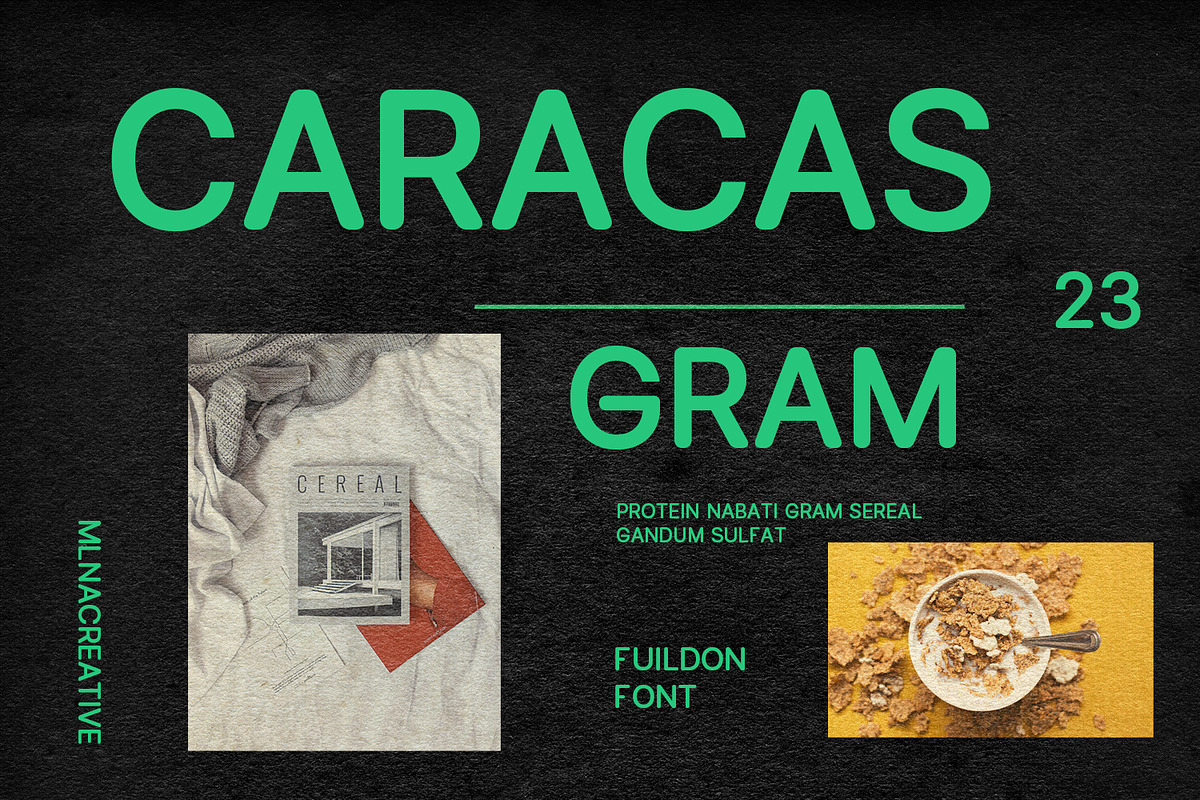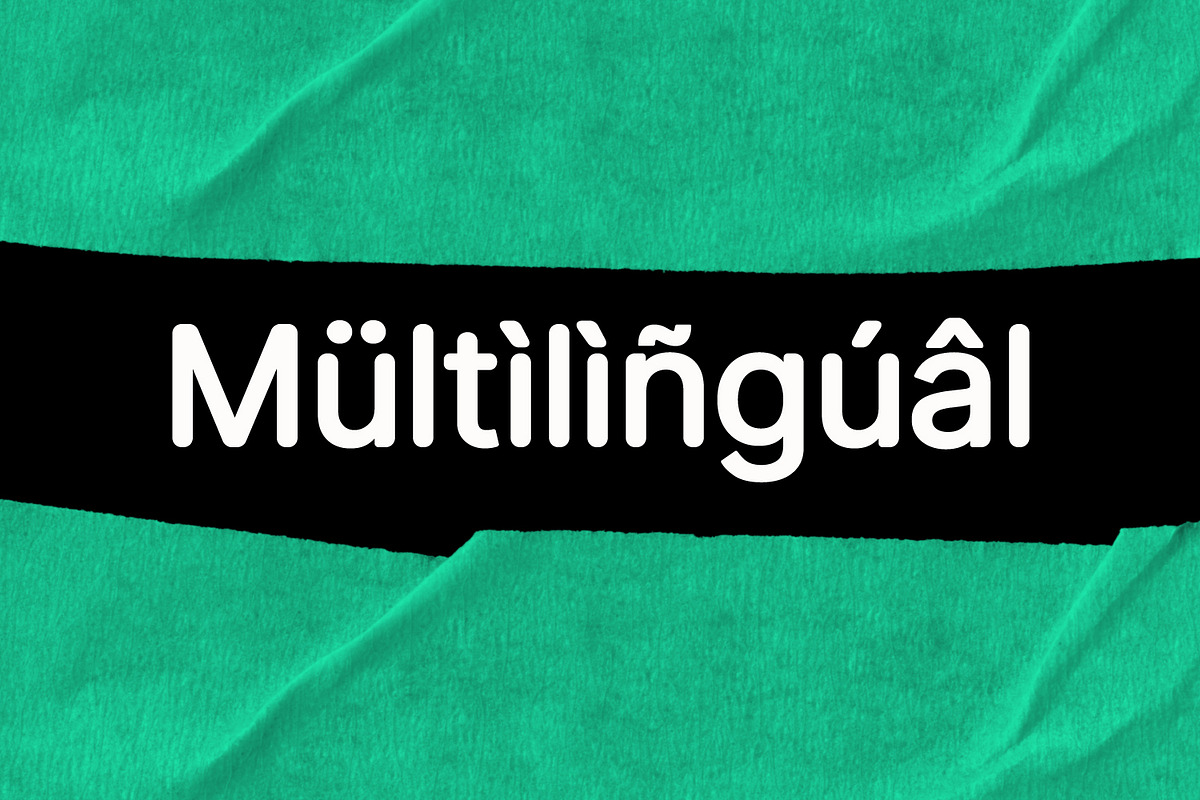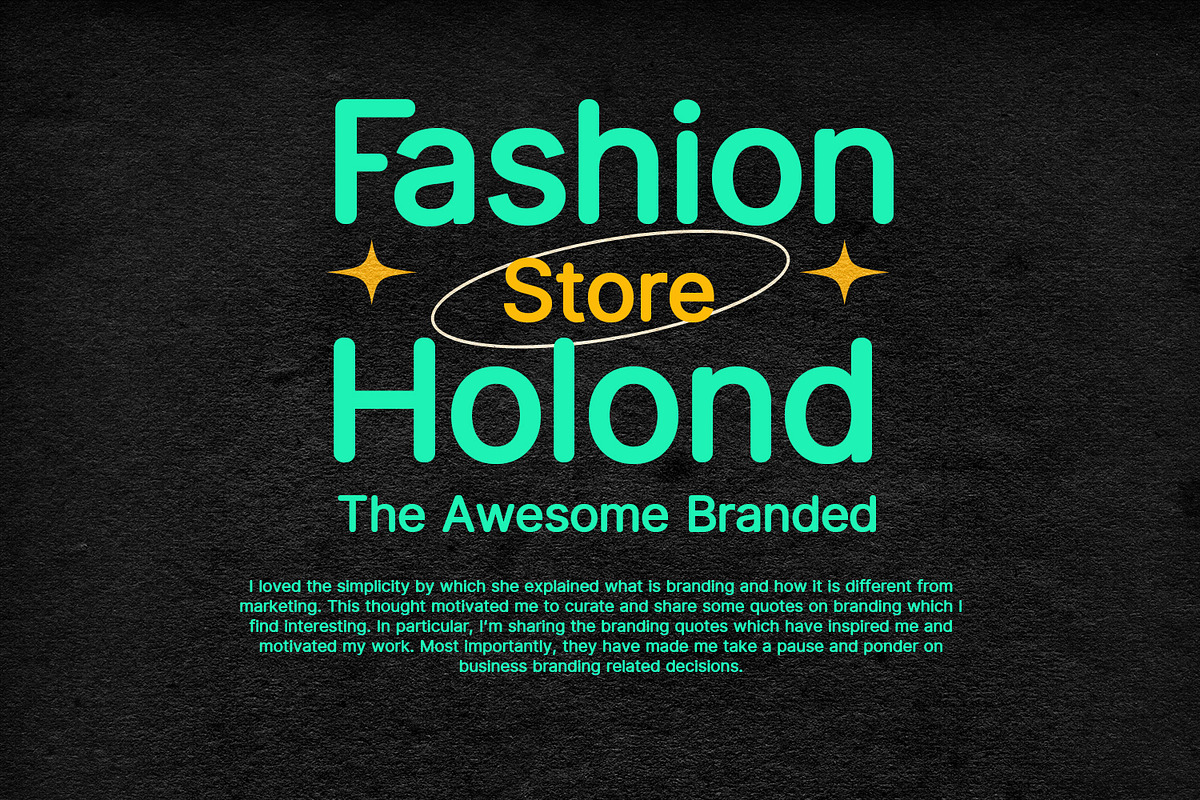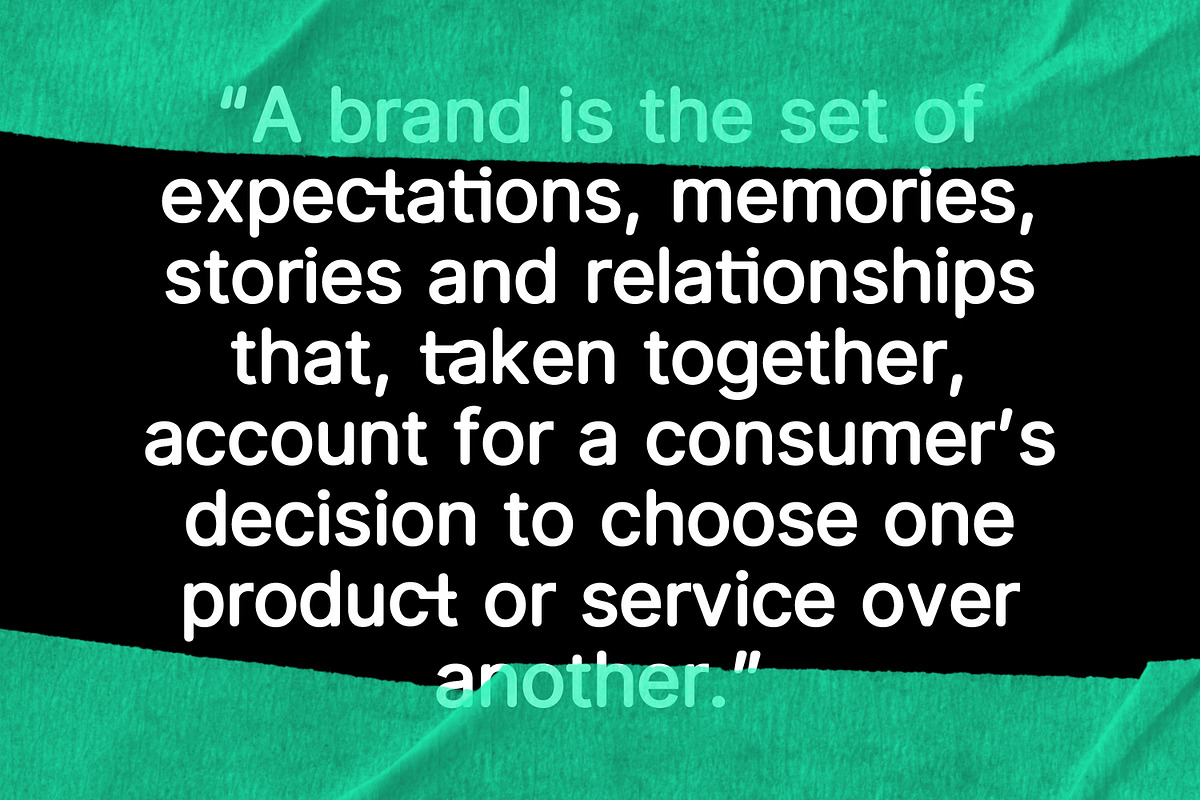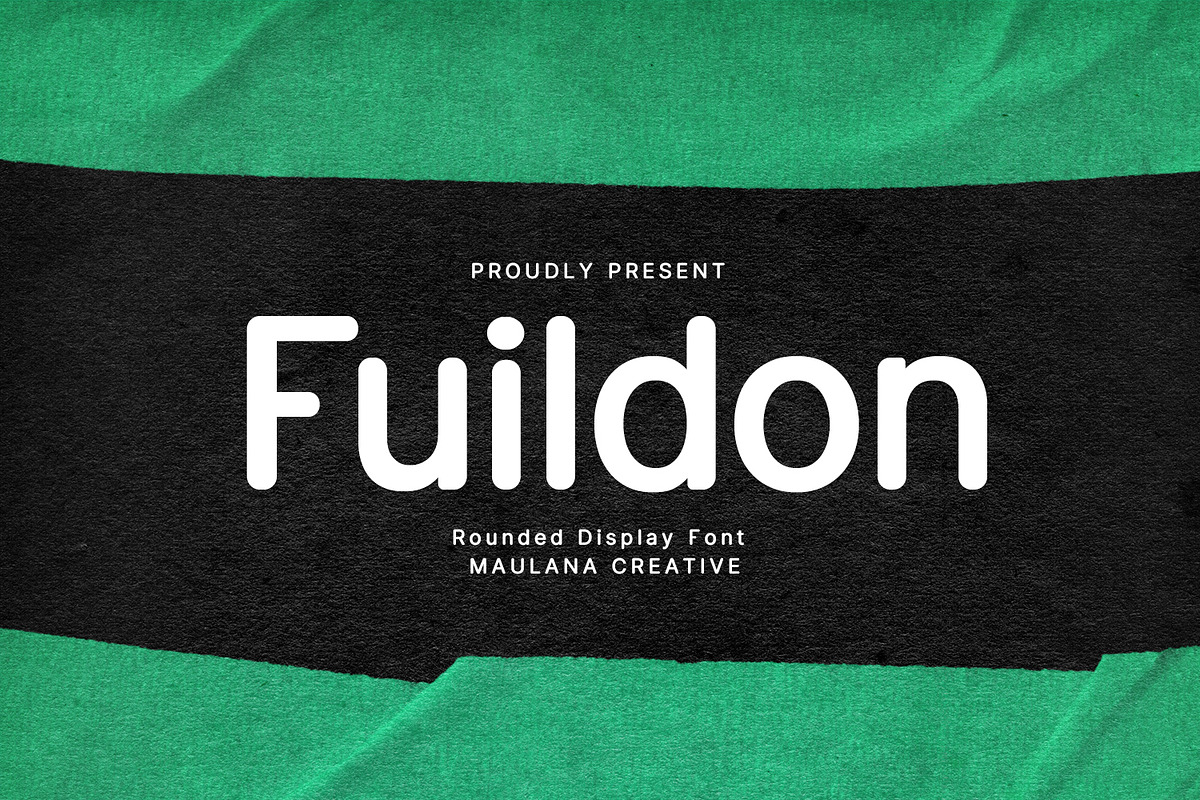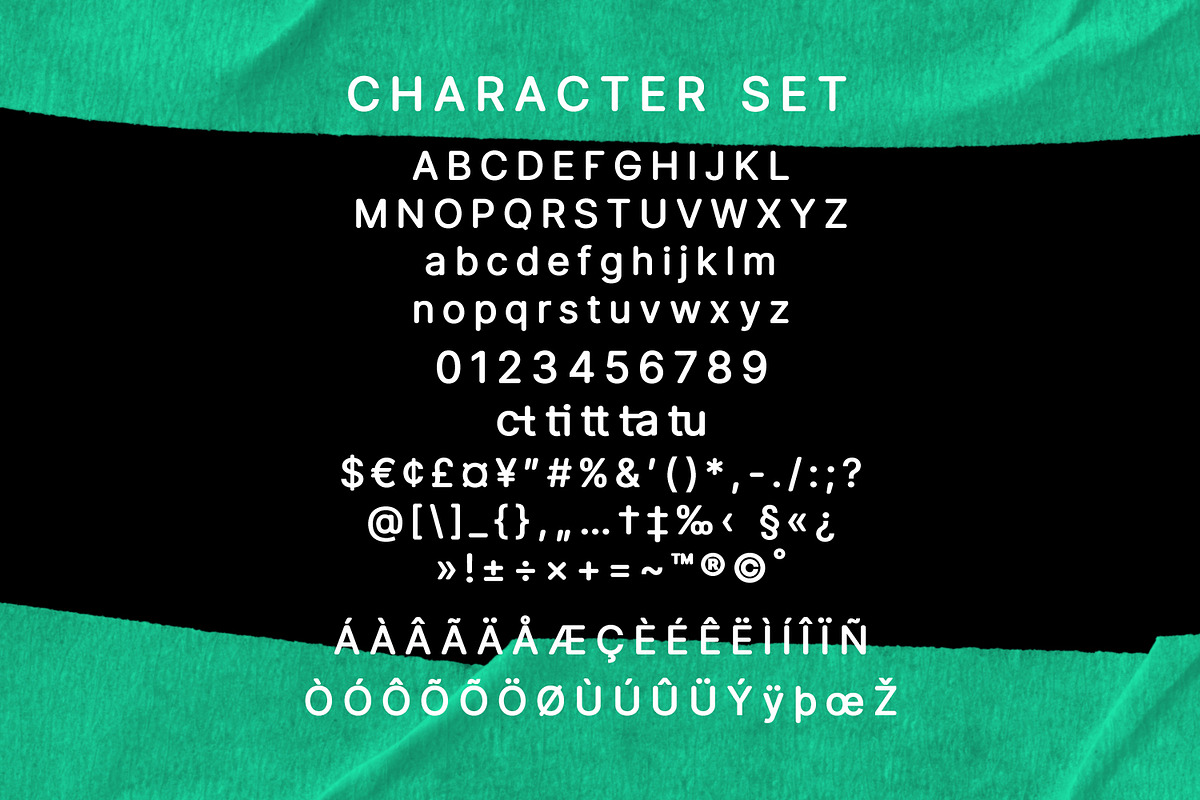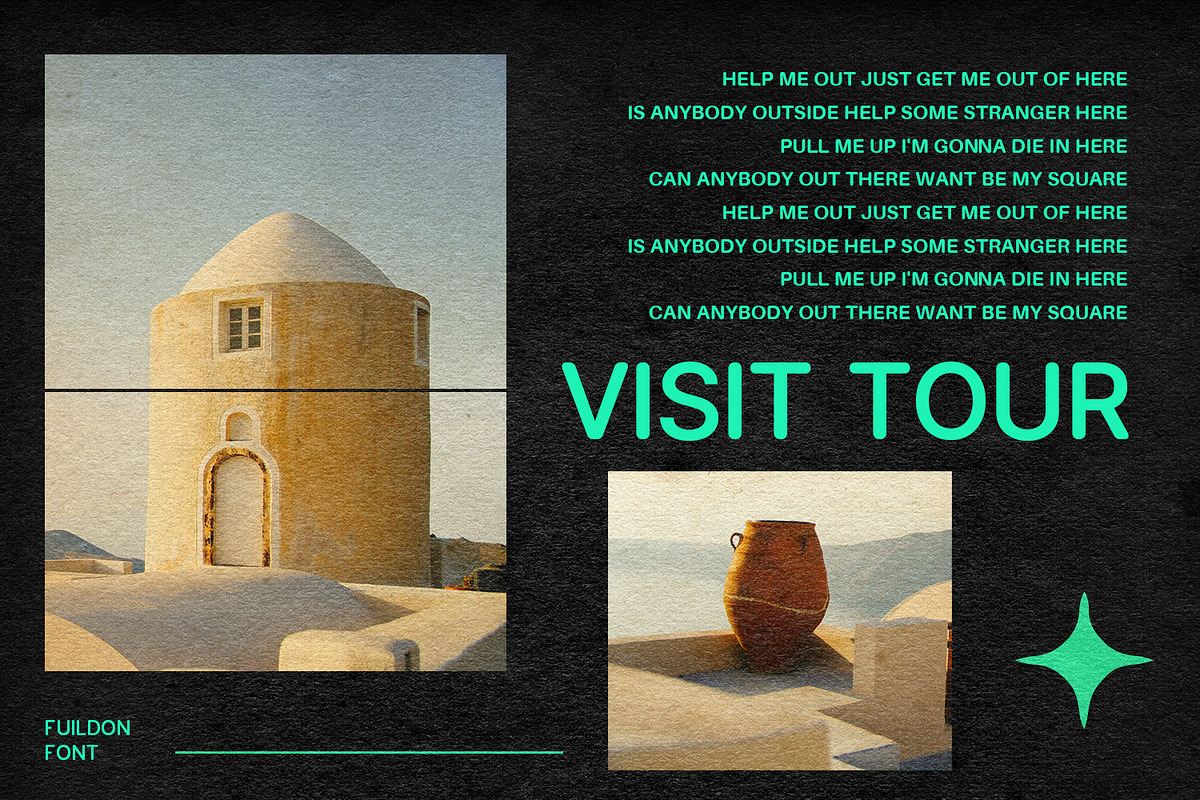
Fuildon Rounded Sans Serif Display F
Fuildon is a rounded modern sans serif font. With bold tall and smooth stroke, fun character with a bit of ligatures. To give you an extra creative work. Fuildon font support multilingual language. This font is good for logo design, Social media, Movie Titles, Books Titles, a short text even a long text letter and good for your secondary text font with sans or serif. Make a stunning work with Fuildon font.